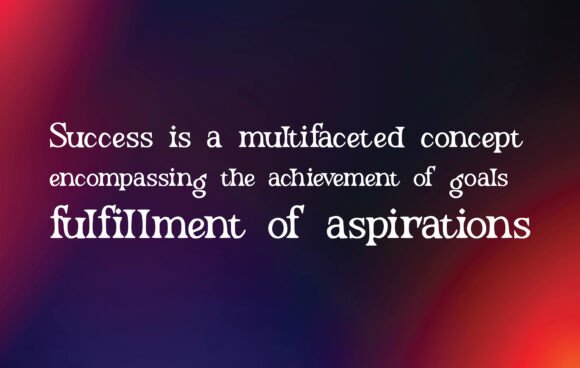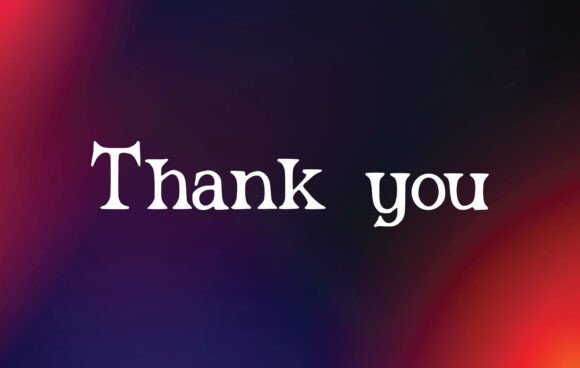
Have you ever stared at a blank canvas, searching for the perfect font to bring your design to life? It’s a moment we’ve all experienced – the thrill of creation, the pressure to get it just right. But what if you had a trusted companion in your design toolbox, a font that could elevate any project and make your work shine?
Enter Beaver Font, a stylish and versatile typeface designed to become a go-to favorite in your collection. With its effortless readability and chic aesthetic, Beaver Font is the perfect choice for titles, body text, and everything in between. Whether you’re working on a magazine spread, a social media post, or a branding project, Beaver Font is the perfect addition to your design arsenal.
Beaver Font Key Features
- Size: The font comes in a single size range, from Extra Light to Bold, covering a wide range of applications.
- Resolution: Beaver Font is designed to be highly legible at various resolutions, making it suitable for digital and print media.
- Unique Characteristics: The font features a distinctive beaver-inspired design, with unique letterforms and subtle texture elements that evoke a sense of naturalness and authenticity.
- Font Weight: Beaver Font offers 8 different font weights, from Extra Light to Bold, allowing for a high degree of flexibility in design applications.
- Language Support: The font supports a wide range of languages, including Latin, Cyrillic, and Greek scripts, making it a versatile choice for global design projects.
Beaver Font Review
Overall, I was impressed with Beaver Font’s playful and whimsical feel. The font’s unique letterforms and quirky details add a touch of personality to any design project ✨. I particularly enjoyed the font’s ability to work well in both display and text settings.
- The font’s eclectic charm makes it perfect for creative projects that need a bit of whimsy ✨.
- Its legibility is surprisingly good, making it suitable for longer blocks of text.
- Beaver Font’s bold weight is particularly striking and can add a lot of visual interest to a design.
While Beaver Font has its strengths, there are a few areas where it falls short ⚠️. The font’s irregularity can sometimes make it difficult to read at very small sizes or in low-light environments.
- Lack of consistency in letter spacing can sometimes make the text look uneven.
- The font’s unique style may not be suitable for projects that require a more formal or professional tone.
Despite its limitations, I think Beaver Font is a great addition to any designer’s toolkit. Its unique personality and versatility make it a great choice for projects that need a bit of creativity and flair.
Tips: Use Beaver Font for titles and headings to add a rustic touch to your designs. Experiment with different font sizes and colors to create visual interest.
Tips: Use Beaver Font for creative projects, such as designing invitations, posters, or branding materials. Experiment with layer blending modes and effects to enhance the font’s rustic feel.
Tips: Use Beaver Font for presentations, reports, or documents that require a professional yet rustic touch. Experiment with font sizes and colors to create visual hierarchy.
Beaver Font is ideal for:
- Crafting invitations and event materials.
- Designing branding materials, such as logos and business cards.
- Creating rustic-themed presentations and reports.
Tips: Use Beaver Font in conjunction with other fonts and design elements to create a cohesive and visually appealing design.